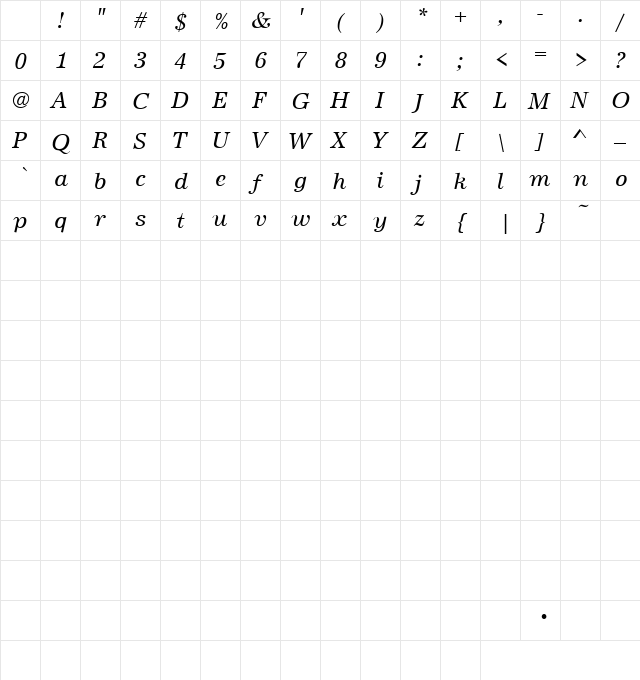
Three Mile Smile 1 is a composed and adaptable typeface that performs quietly and consistently across a wide range of design contexts. The slanted form adds forward momentum and visual energy.
Pro Tip: Use Three Mile Smile 1 for emphasis, pull quotes, and subheadings where its slanted energy can add rhythm to the layout.